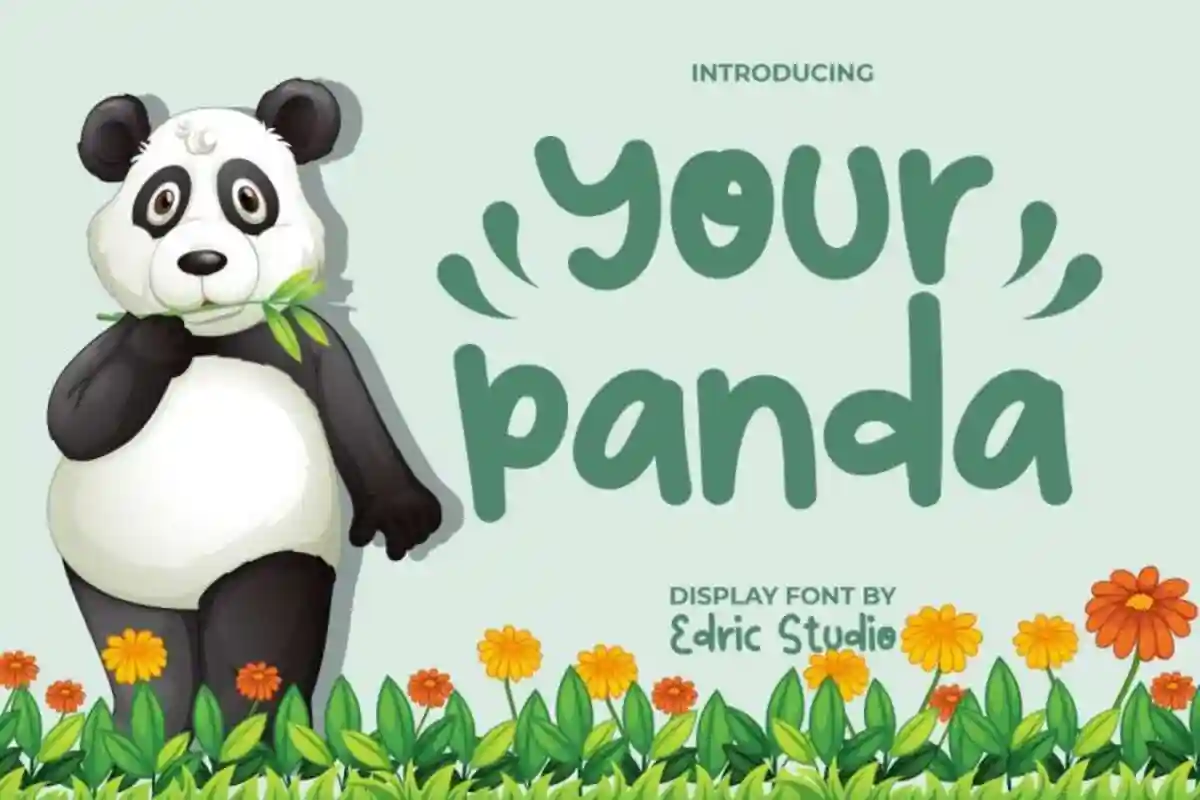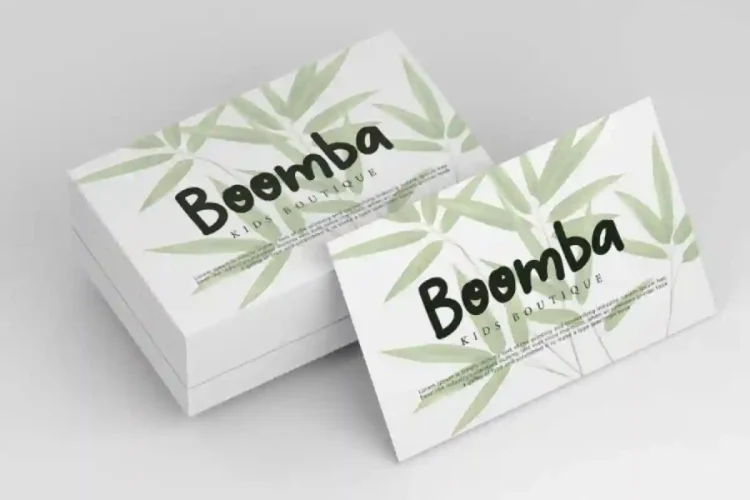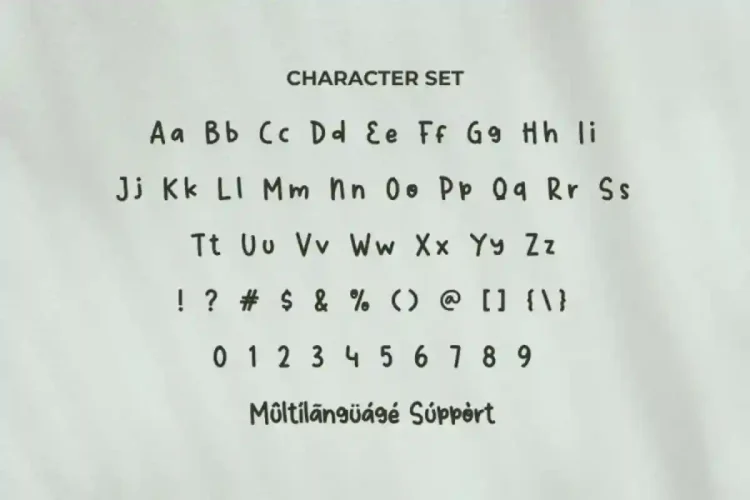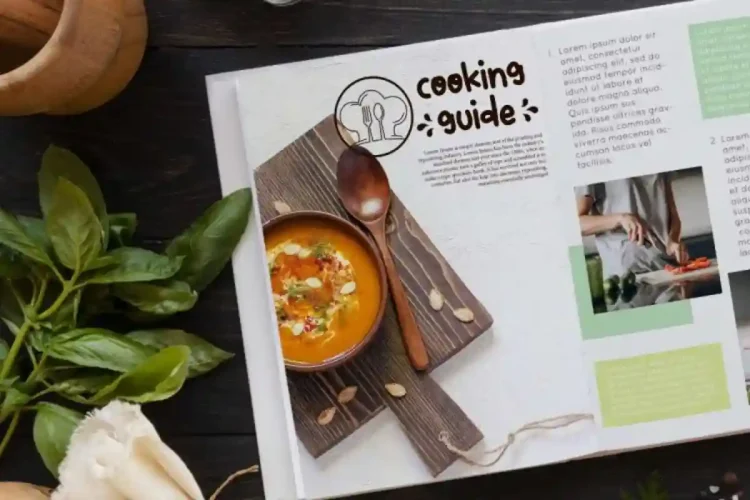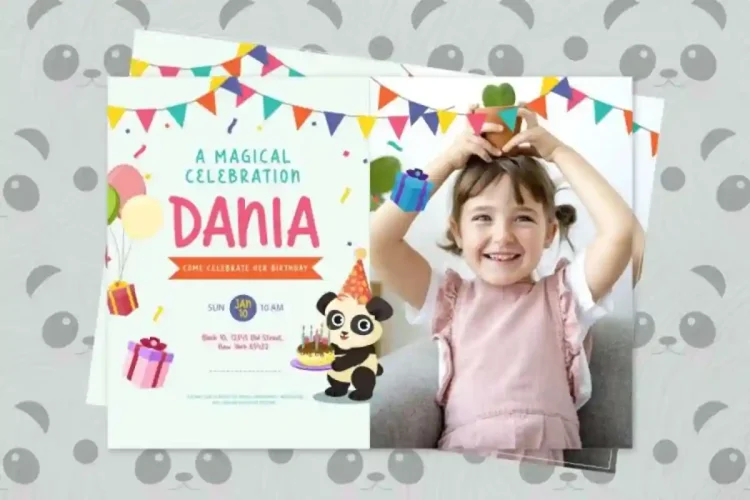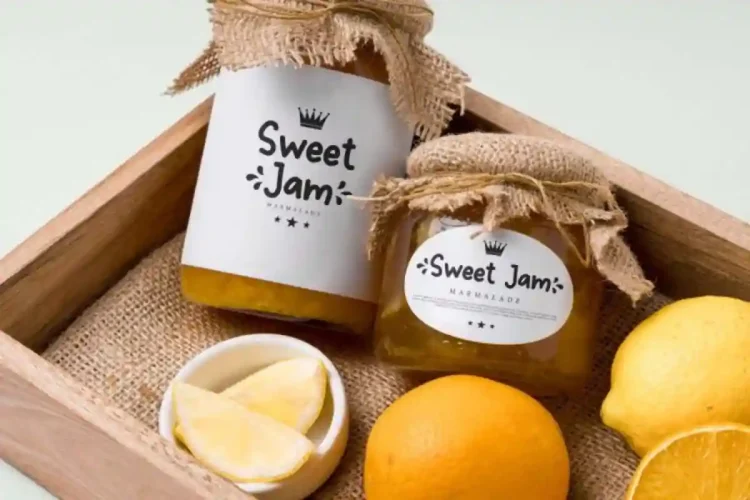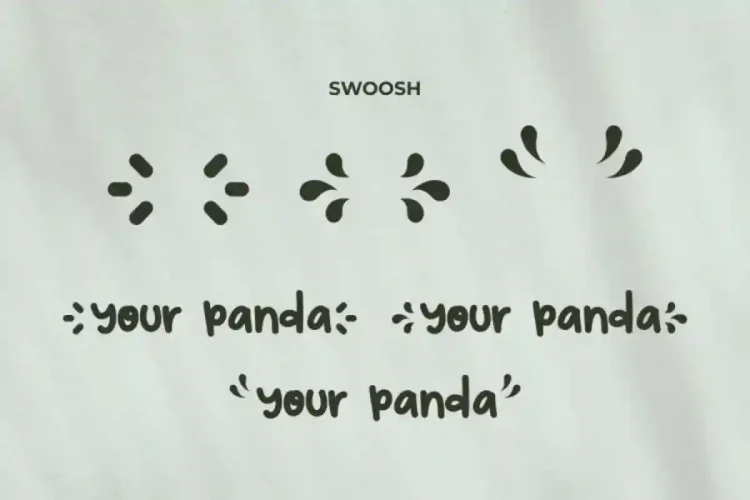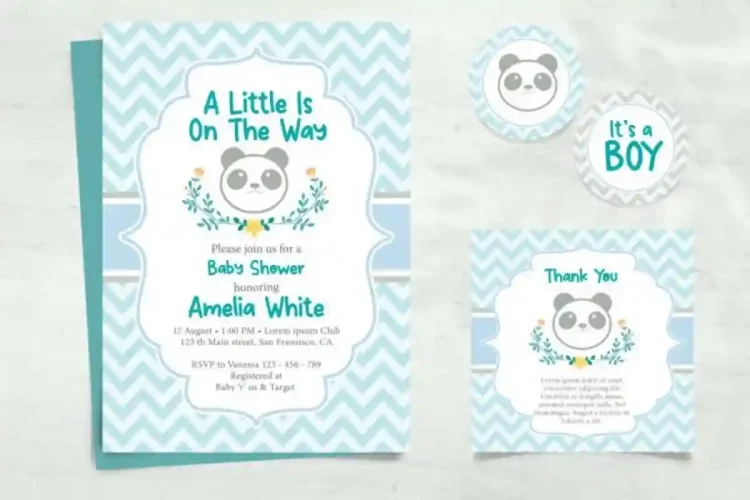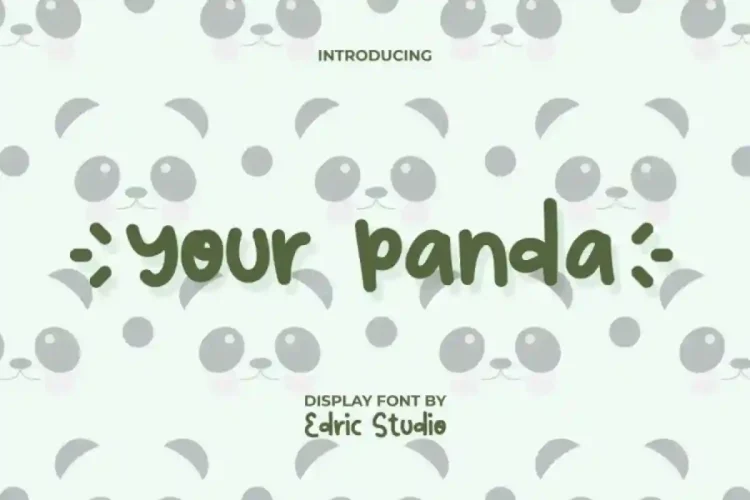
Your Panda Display Script Font
Your Panda Display Font a playful display typeface created by EdricStudio. If you’re looking for a font that instantly adds personality and joy, Your Panda Font is the perfect choice.
Your Panda Display Font this unique typeface includes a full set of uppercase and lowercase letters, numbers, punctuation, symbols, and even swooshes to enhance your designs. It has a stunning characters set, perfectly managed with well spaced and kerning. Your Panda Display Font will be great for any projects (with extended license) including : brand logo, business card, invitation, label, magazine, product packaging, title, etc.
Your Panda Display Font is a playful typeface with unique decoration in each character. Ready to use both on Windows machine or Mac with simple installations. It’s tested to work well in the Adobe Apps (Illustrator, Adobe InDesign, Adobe Photoshop) even work on Microsoft Word. PUA Encode Characters means you can access all the glyphs and swashes with ease – Fully accessible without additional design software.